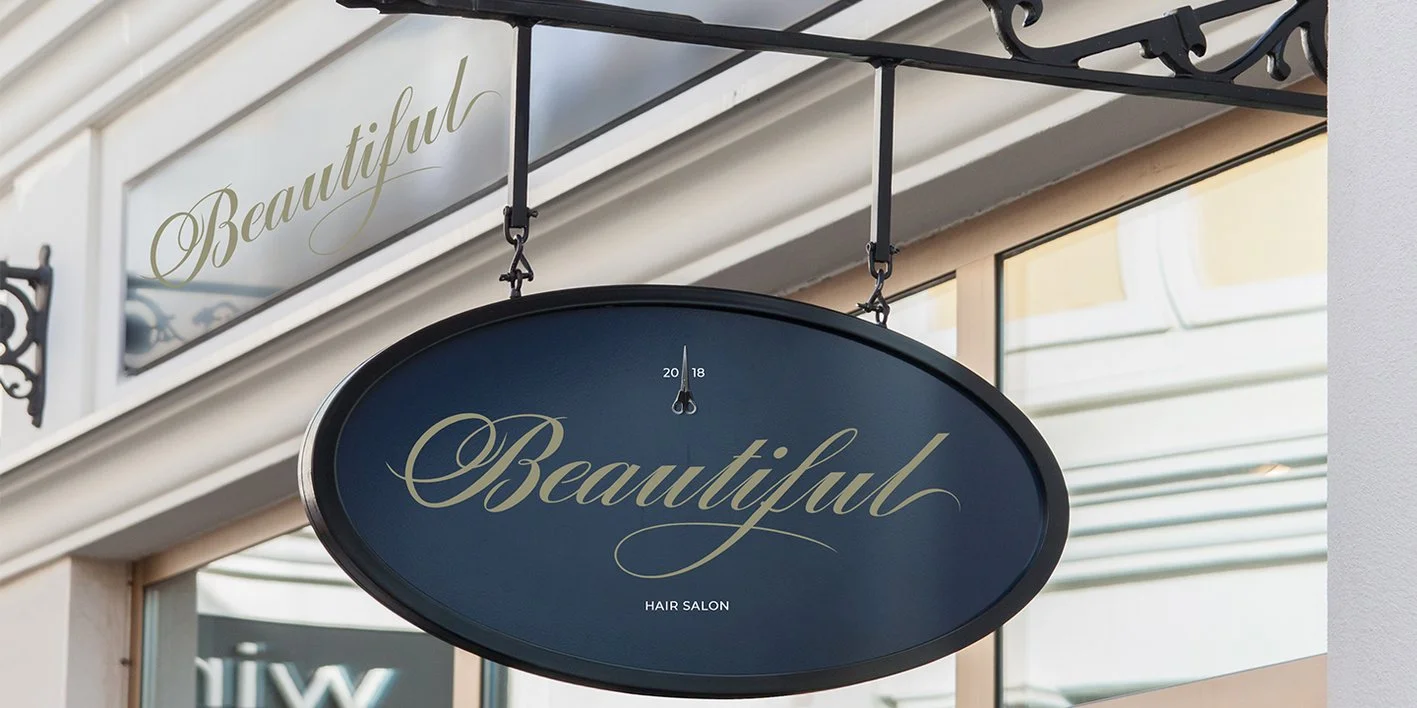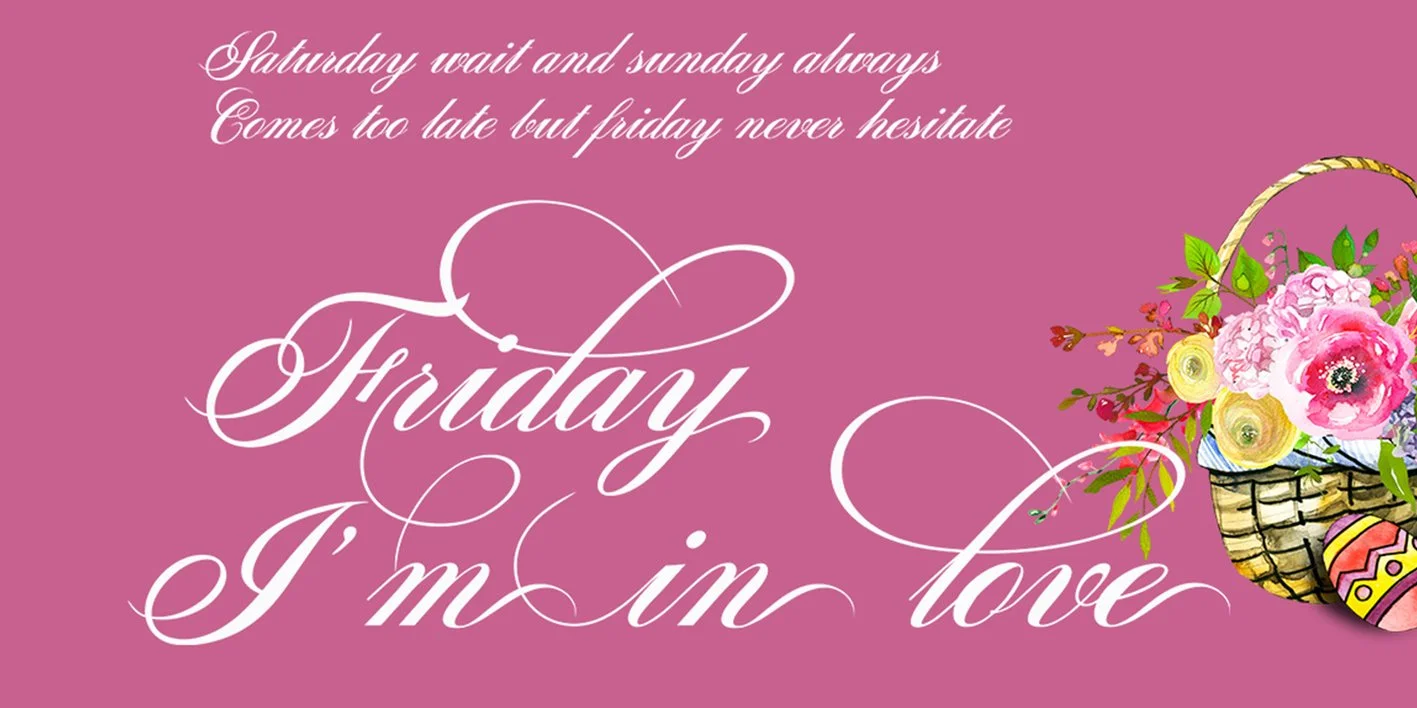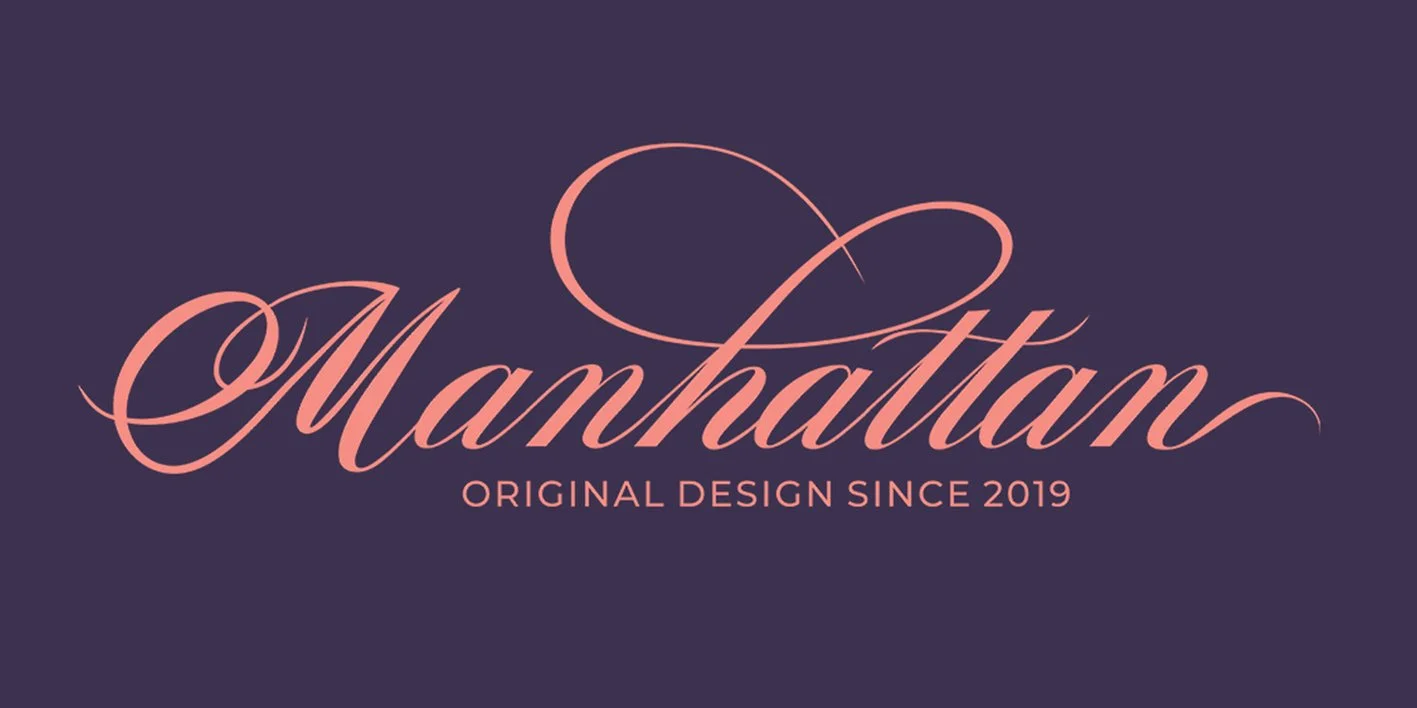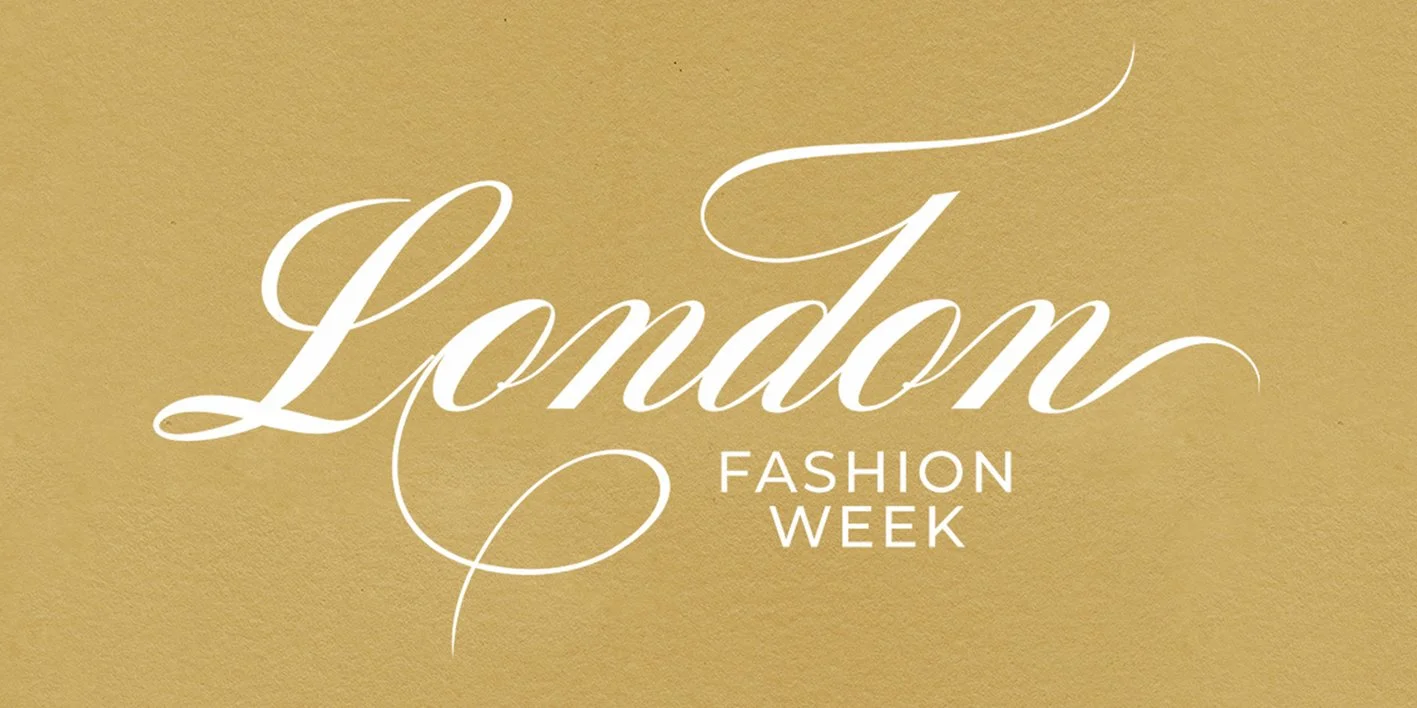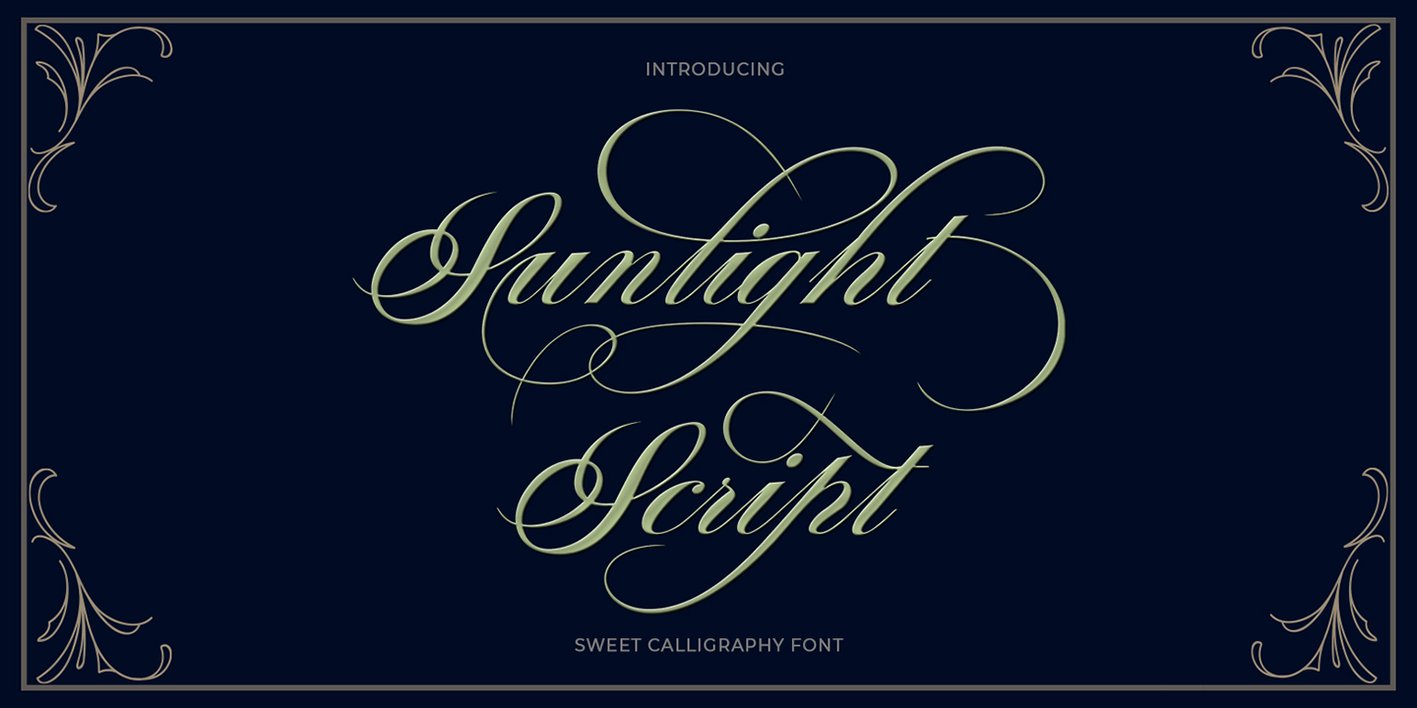
Sunlight Script Font
Sunlight Script Font is perfect for summer vacation resorts, tropical destination weddings, sunny day care centers, outdoor festival promotions, solar energy company branding, vitamin D wellness centers, beach club signage, sunrise yoga studios, golden hour photography services, and bright lifestyle brand identities. This radiant typeface brings warm sunshine and uplifting energy to any light-filled design project.
Sunlight Script Font is exciting because it captures the life-giving warmth and boundless optimism of golden sunshine, featuring flowing script letterforms that seem to dance with the gentle warmth of summer rays and the joyful energy that comes from basking in natural light. Its luminous character instantly conveys happiness, vitality, and the uplifting power of bright, sunny days.
Sunlight Script Font family includes Regular and Bold weights with sun-inspired alternates, radiant swashes, golden flourishes, and light-themed ornamental elements that enhance the bright aesthetic, providing sunny designers with brilliant tools for creating typography that celebrates the life-giving energy and natural warmth of beautiful sunshine.
Sunlight Script Font offers wellness and hospitality professionals access to one of the most authentically bright typefaces available for sunshine-themed design applications. This exceptional font has gained recognition among vacation resorts, wellness centers, and outdoor recreation brands for its ability to communicate natural energy and sunny optimism through typography that embodies the therapeutic benefits of sunlight.
Outdoor lifestyle designers love Sunlight Script Font for its exceptional ability to evoke sunshine themes and create immediate associations with warmth and happiness through carefully crafted letterforms. The font's radiant character and golden details create instant connections with summer vacations, outdoor adventures, and the natural vitamin D benefits that make sunshine essential for physical health and emotional well-being.
The design inspiration behind Sunlight Script Font draws from golden hour photography, summer celebrations, and the natural healing power of sunshine, making it particularly effective for wellness brands, outdoor recreation companies, and hospitality businesses seeking to establish authentic connections with the life-giving energy of natural sunlight. Tourism teams working on sunny destinations find this font essential.
Whether used for tropical vacation resorts, outdoor wellness programs, or solar energy initiatives, Sunlight Script Font delivers the perfect combination of natural warmth and uplifting energy. Its sunny appeal and radiant authenticity make it an indispensable choice for brands that celebrate the healing power of sunshine, outdoor living, and the bright optimism of sun-filled experiences.